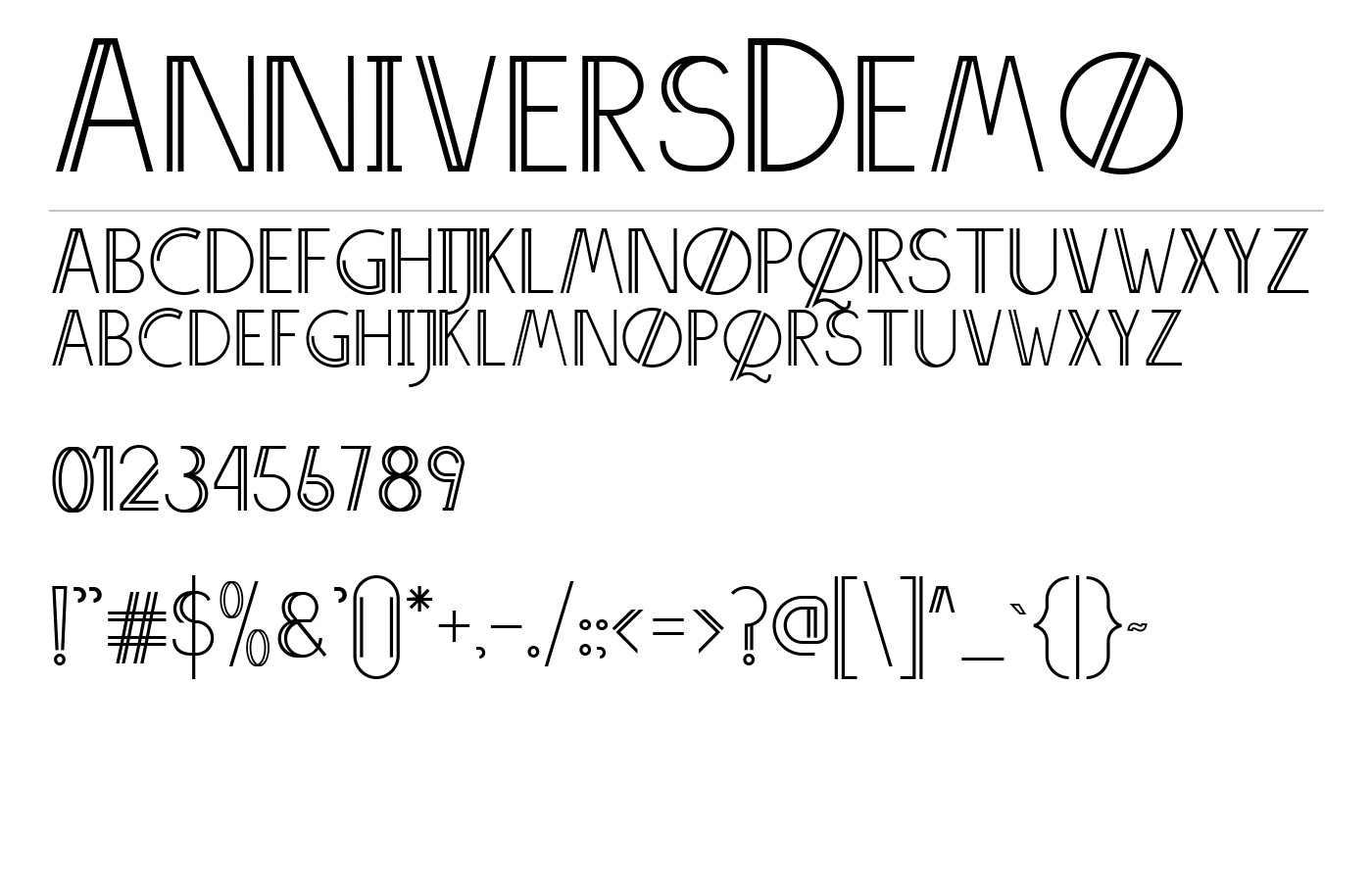
AnniversDemo is a sleek, modern sans serif font with an elegant, geometric style characterized by its tall, narrow letterforms and striking double-line strokes. Its high contrast and unique design elements give it a sophisticated, art-deco vibe, making it ideal for branding, logos, and headlines where a stylish and refined look is desired. This font works especially well in creative, fashion, or luxury contexts where a distinctive and memorable impression is key.
AnniversDemo Font
About AnniversDemo Font